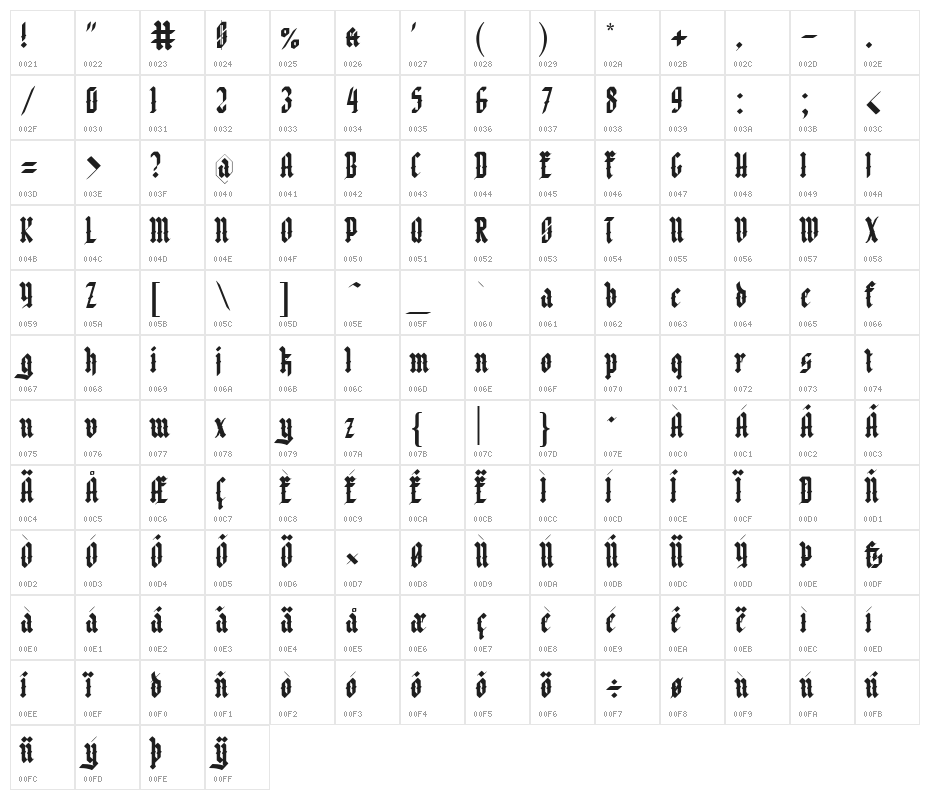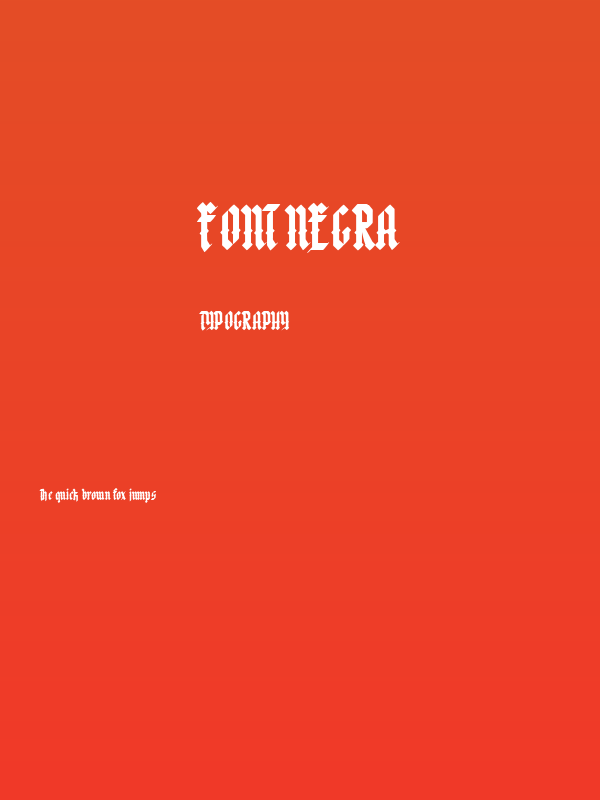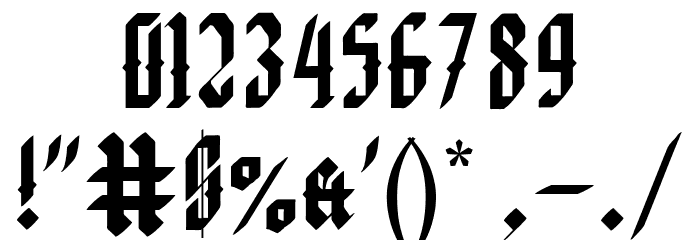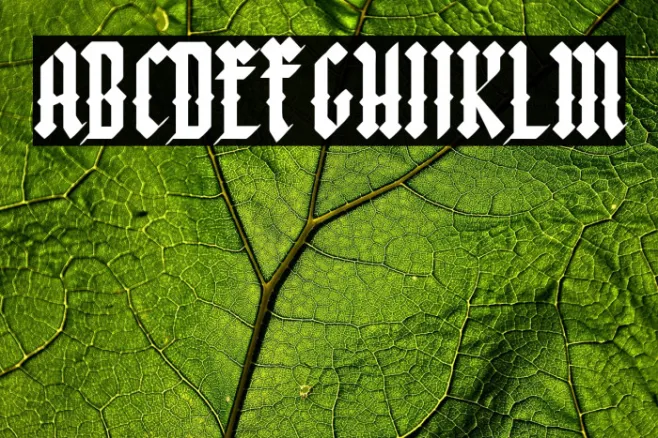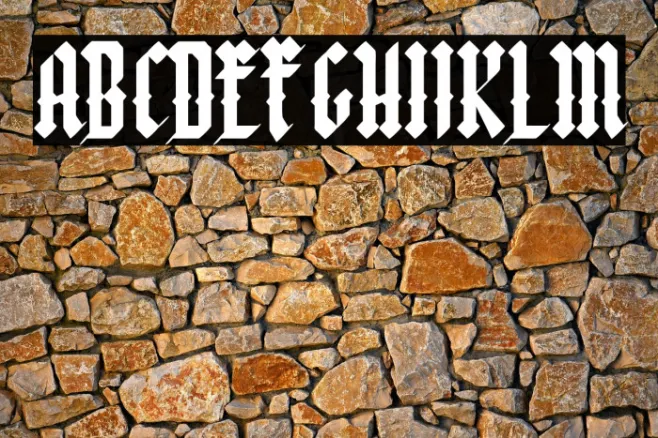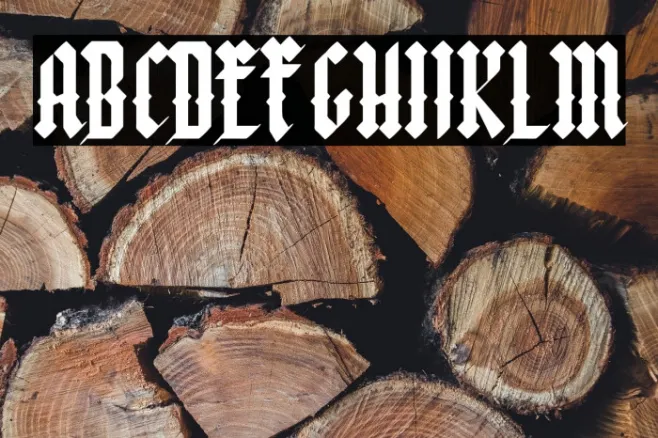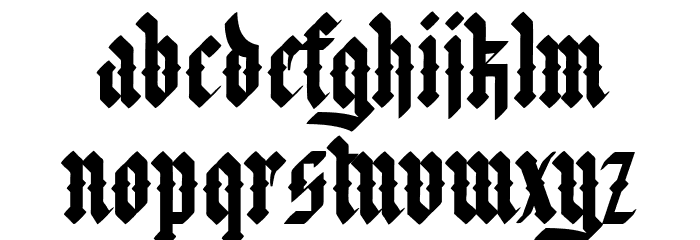
Font Negra Font
Font Negra Description
This font exhibits a bold and dramatic style, reminiscent of traditional Blackletter typefaces. The characters are characterized by sharp, angular lines and strong vertical strokes, giving it a gothic and medieval appearance. The uppercase letters are particularly striking with their intricate design, while the lowercase letters maintain a consistent style with slightly more fluidity. The numerals and special characters follow the same bold and ornate aesthetic, ensuring a cohesive look across all glyphs. This font is ideal for projects that require a historical or formal touch, such as certificates, invitations, or branding for luxury products.
| Overall Style | Gothic, Medieval |
| Use Case | Headlines, Logos, Decorative text |
| Proposed Projects | Ideal for certificates, formal invitations, luxury branding, and historical themed designs. |